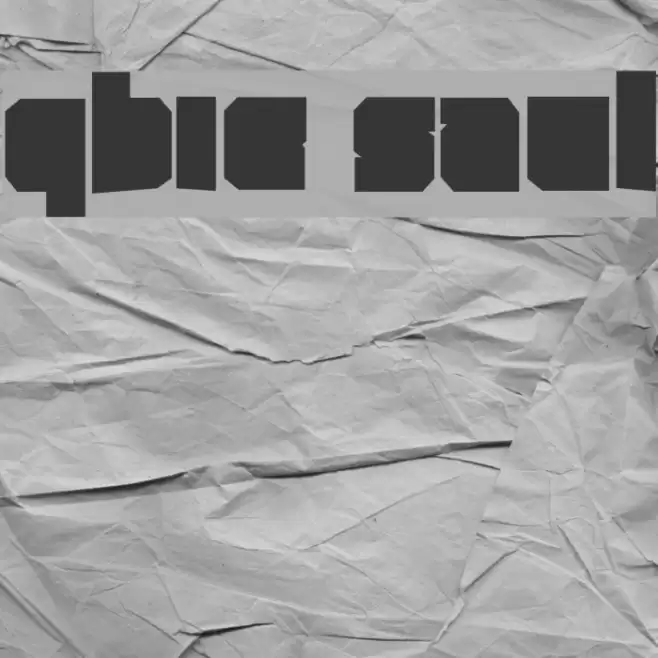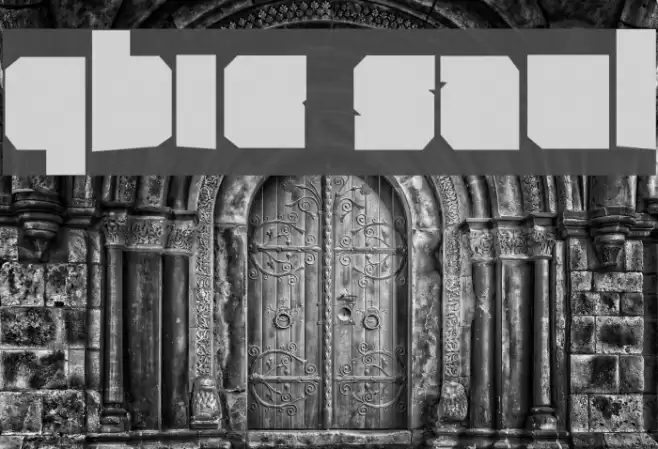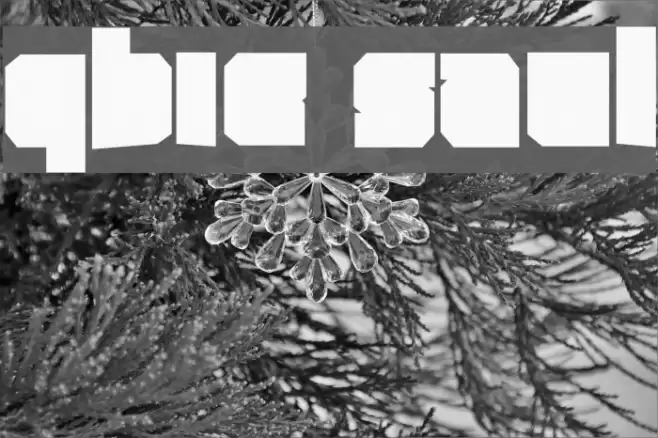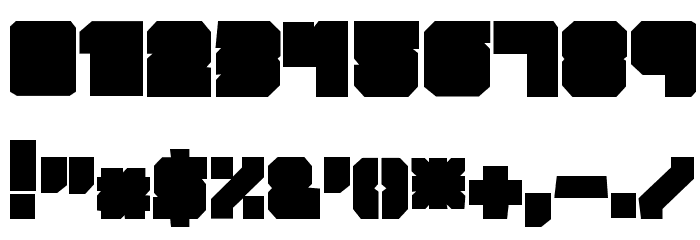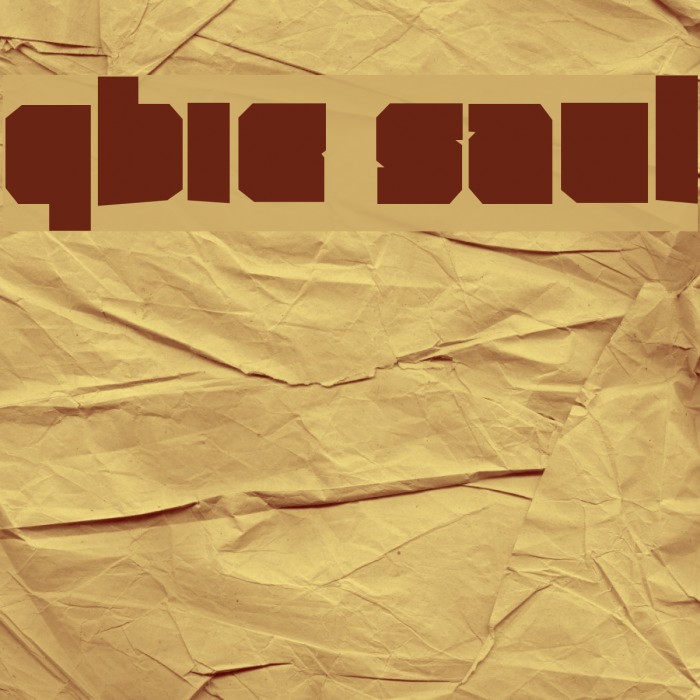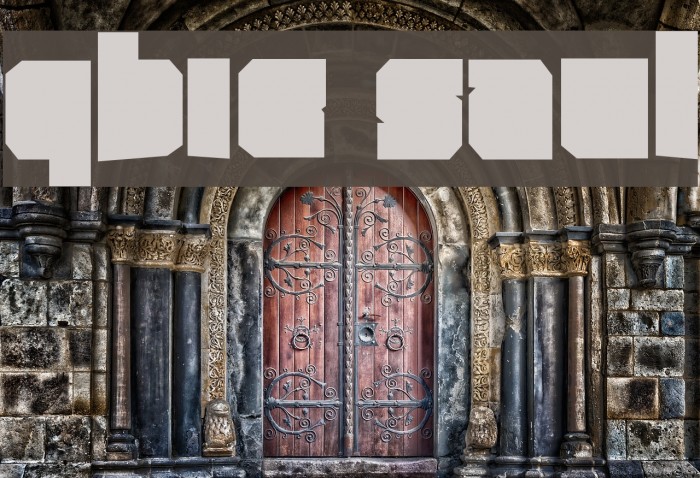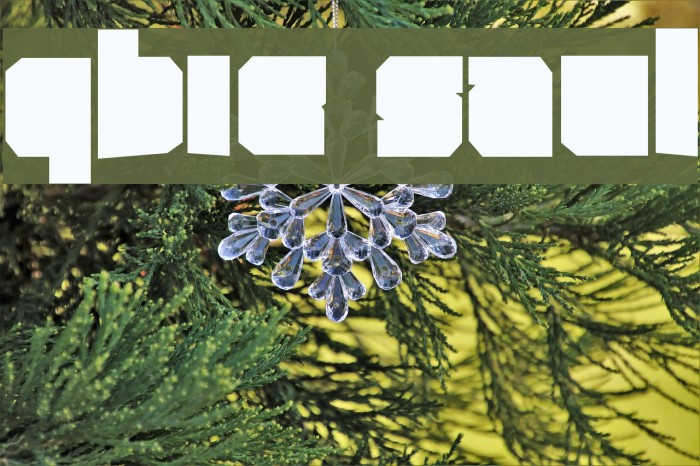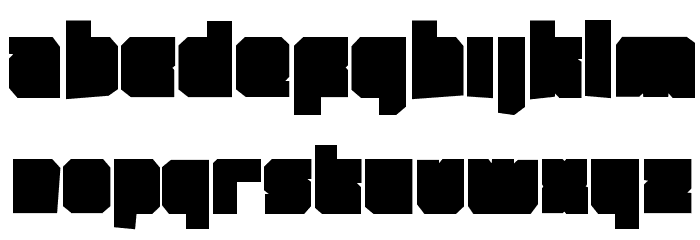
Qbic Saul Font
Qbic Saul Description
This font features a bold and geometric design, characterized by its blocky and angular letterforms. Each character is constructed with sharp edges and uniform thickness, creating a strong and impactful visual presence. The uppercase and lowercase letters maintain a consistent style, with minimal variation in stroke width, contributing to a cohesive and unified appearance. The numbers and special characters follow the same design principles, ensuring a seamless integration across all elements. This font's distinct style makes it ideal for projects that require a modern and assertive aesthetic.
A bold, geometric font with blocky, angular letterforms from Uncategorized fonts.
- Proposed Projects: Ideal for branding, posters, headlines, and any design requiring a strong, modern look.